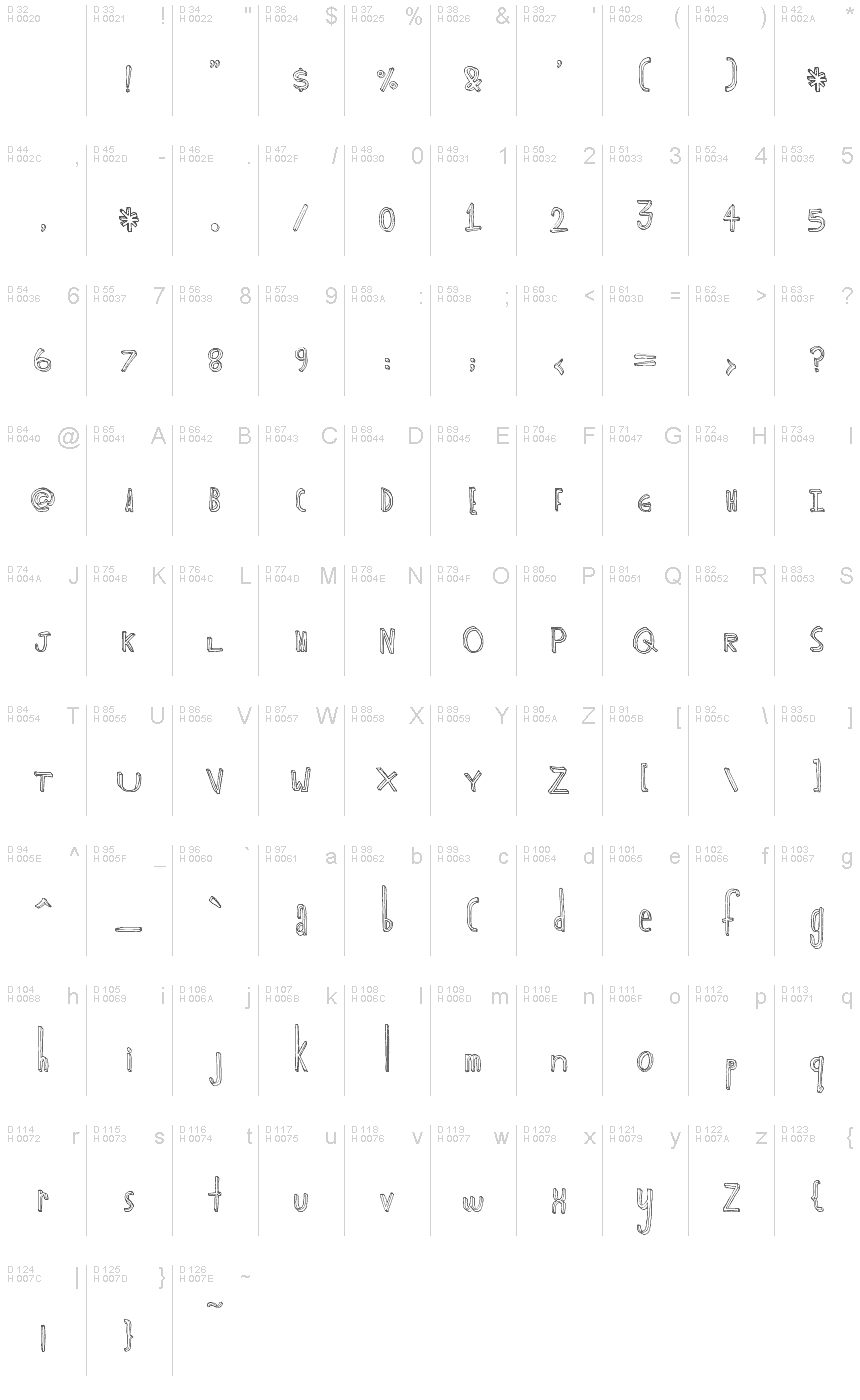
MajorChronic
Major Chronic is a display font that exudes a captivating, cartoon-like charm. Its condensed width and bold, expressive letterforms immediately command attention, radiating a sense of playfulness and whimsy.
The unique, hand-drawn aesthetic gives this font a distinct personality, making it well-suited for a variety of design applications, from eye-catching headlines and logos to vibrant packaging and branding elements.
The font's unconventional style and distinctive character ensure it can lend a touch of playful sophistication to any creative project, seamlessly blending the boundaries between playful and professional.